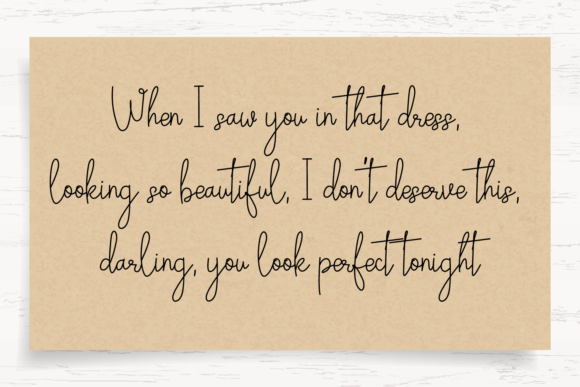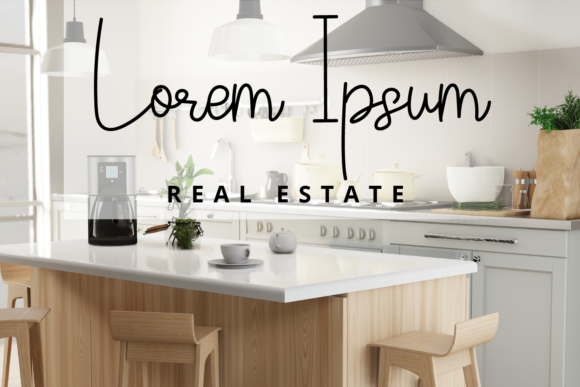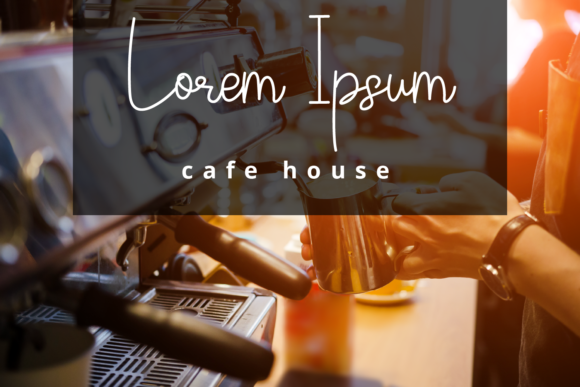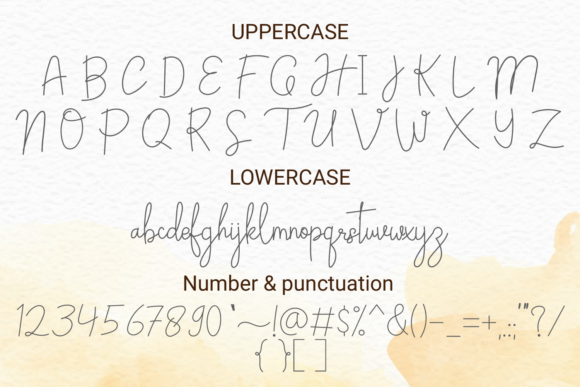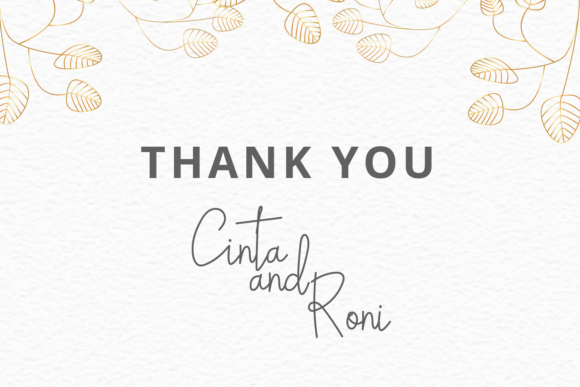
The Quest for the Perfect Font: A Love Letter to High Handmade
I’ll never forget the design project that led me to fall in love with High Handmade. I was working on a branding project for a luxury wedding planner, and I needed a font that exuded elegance, sophistication, and a touch of whimsy. I scoured the internet, tried out countless fonts, but none seemed to capture the essence of what I was looking for. That was until I stumbled upon High Handmade.
As soon as I laid eyes on it, I knew I had found “the one.” Its classy calligraphic influences, combined with a modern and fresh feel, made it an instant favorite. I used it for the entire branding project, from the logo to the stationery, and it elevated the entire design to new heights. If you’re a designer, crafter, or creative hobbyist looking for a font that will take your projects to the next level, you’re in luck! In this article, we’ll dive into the world of High Handmade and explore its features, uses, and alternatives.
So, what makes High Handmade so special? Here are a few things that I absolutely love:
• ✨ Exquisite handwritten feel that’s both elegant and approachable
• ✅ Classy calligraphic influences that add a touch of sophistication
• 💫 Modern and fresh design that’s perfect for contemporary projects
• 🎨 Highly versatile and can be used for a wide range of applications, from branding to packaging
Of course, no font is perfect, and High Handmade has a few quirks to be aware of:
• 🤔 Some users may find the font a bit too ornate for certain projects
• ⚠️ May not be the best choice for very small text sizes or body copy
The Story Behind High Handmade
While the true story behind High Handmade may be a mystery, it’s easy to imagine a designer pouring their heart and soul into creating such a beautiful font. Perhaps they were inspired by the elegant calligraphy of ancient manuscripts, or the playful handwriting of a favorite childhood book. Whatever the inspiration, the result is a font that’s both timeless and modern.
Here are a few frequently asked questions about High Handmade:
What is High Handmade? High Handmade is a handmade font with a classy, calligraphic feel.
Is High Handmade suitable for body copy? While High Handmade is beautiful, it may not be the best choice for body copy. It’s better suited for headlines, titles, and short bursts of text.
Does High Handmade support OpenType features? Yes! High Handmade supports OpenType features, including glyphs and stylistic alternates.
And there you have it – a comprehensive guide to High Handmade, a truly exquisite font that’s sure to elevate your design projects to new heights. Whether you’re a designer, crafter, or creative hobbyist, High Handmade is a font that’s sure to inspire and delight.